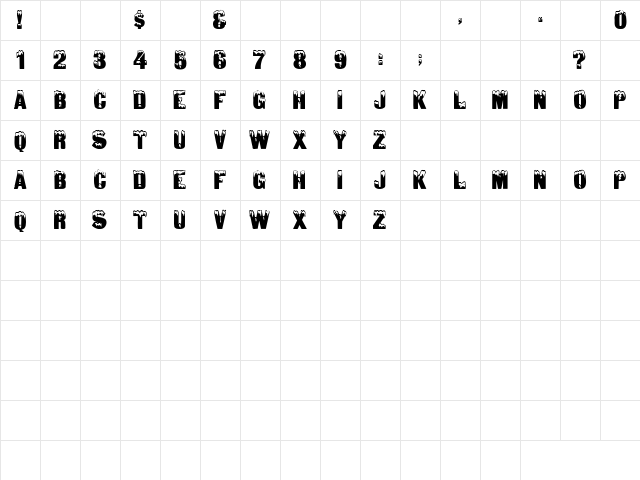
Diamond 2 Regular Free Font
Diamond 2 Regular
Design Context for Diamond 2
Diamond 2 is a composed and adaptable typeface that performs quietly and consistently across a wide range of design contexts.